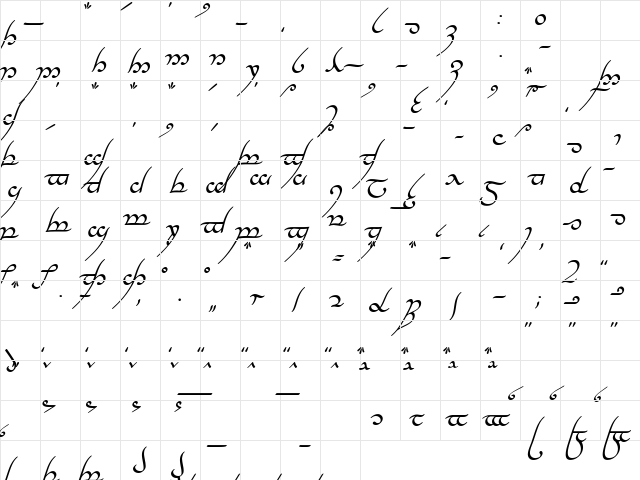
Tengwar Annatar Italic
| Designer | Johan Winge |
Tengwar Annatar takes a measured approach to typography — its balanced proportions and neutral character make it a reliable workhorse for both digital and print work. The dynamic lean of this cut emphasises speed and emphasis in any layout.